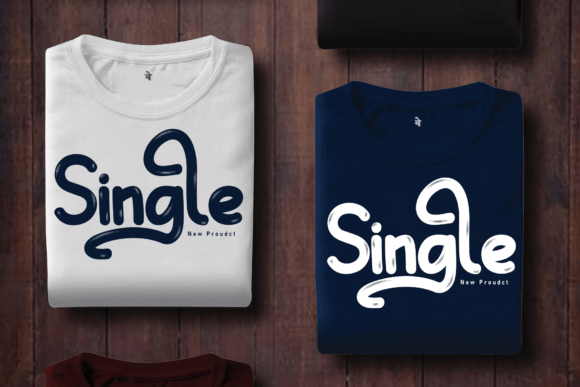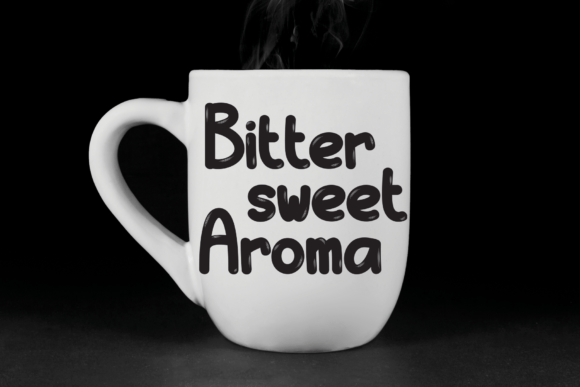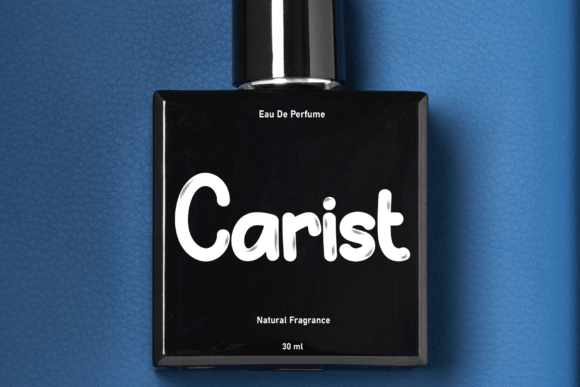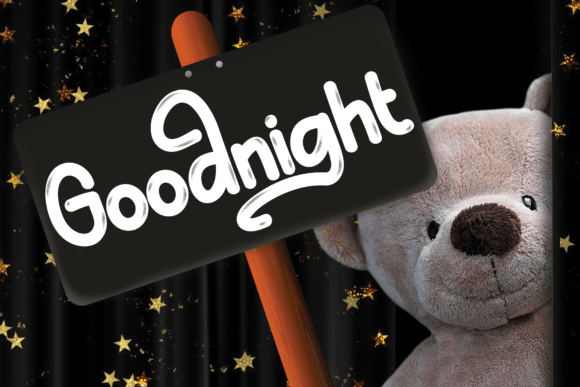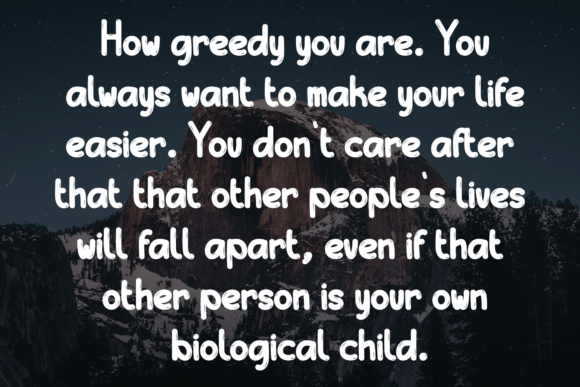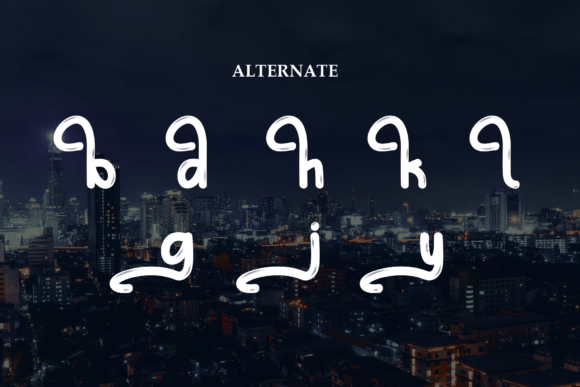
Introducing Citynight Font: The Timeless Handwritten Font for Stunning Designs
Are you a designer or crafter looking for a font that can elevate your creative projects to the next level? Look no further than Citynight Font, a lovely and timeless handwritten font that is perfect for creating eye-catching logos, branding, and quotes. With its unique and beautiful touch, Citynight Font is sure to make your design come alive!
The Characteristics of Citynight Font
Citynight Font is a handwritten font that exudes a sense of elegance and sophistication. Every letter has a distinct and beautiful touch, making it perfect for designs that require a personal and creative flair. The font is highly legible, making it suitable for use in a variety of applications, from logos and branding to quotes and social media graphics.
Why Choose Citynight Font?
So, why should you choose Citynight Font for your design projects? Here are just a few reasons:
- Unique and Beautiful Touch: Every letter in Citynight Font has a unique and beautiful touch that will make your design stand out from the crowd.
- Elegant and Sophisticated: Citynight Font exudes a sense of elegance and sophistication, making it perfect for designs that require a high-end look and feel.
- Highly Legible: The font is highly legible, making it suitable for use in a variety of applications, from logos and branding to quotes and social media graphics.
- Perfect for Logos and Branding: Citynight Font is perfect for creating eye-catching logos and branding materials that will help your business stand out from the competition.
How to Use Citynight Font
Citynight Font is a versatile font that can be used in a variety of applications. Here are a few ideas to get you started:
- Logos and Branding: Use Citynight Font to create eye-catching logos and branding materials that will help your business stand out from the competition.
- Quotes and Social Media Graphics: Use Citynight Font to create stunning quotes and social media graphics that will help you connect with your audience.
- Invitations and Stationery: Use Citynight Font to create beautiful invitations and stationery that will add a personal touch to your correspondence.
Tips for Getting the Most Out of Citynight Font
Here are a few tips for getting the most out of Citynight Font:
- Experiment with Different Colors: Citynight Font looks great in a variety of colors, so don’t be afraid to experiment and find the perfect color for your design.
- Use it with Other Fonts: Citynight Font can be paired with other fonts to create a unique and interesting look.
- Pay Attention to Kerning: Make sure to pay attention to kerning when using Citynight Font to ensure that your design looks professional and polished.
In conclusion, Citynight Font is a lovely and timeless handwritten font that is perfect for designers and crafters looking to create stunning designs. With its unique and beautiful touch, Citynight Font is sure to make your design come alive! Whether you’re looking to create eye-catching logos and branding materials, stunning quotes and social media graphics, or beautiful invitations and stationery, Citynight Font is the perfect choice.